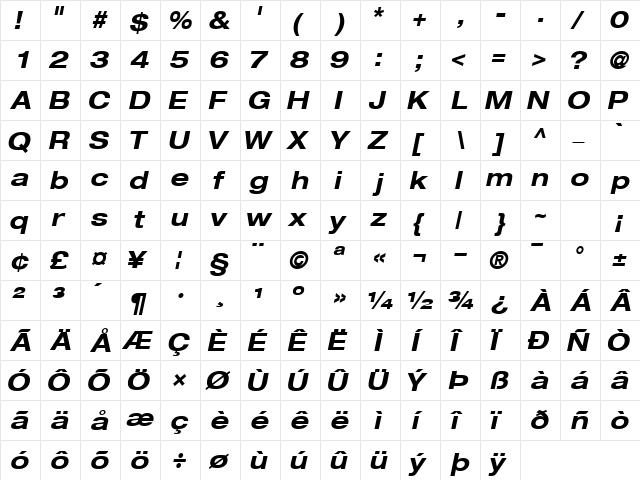
ContextRepriseExpandedSSK BoldItalic Font Preview
Design Context for ContextRepriseExpandedSSK Typeface
ContextRepriseExpandedSSK takes a measured approach to typography — its balanced proportions and neutral character make it a reliable workhorse for both digital and print work. Its italic angle brings a sense of urgency and motion to the letterforms. Its bold stroke weight gives it real presence on the page.
Pro Tip: Try ContextRepriseExpandedSSK for annotation and caption copy alongside an upright companion — the contrast in angle creates a dynamic but ordered typographic system.